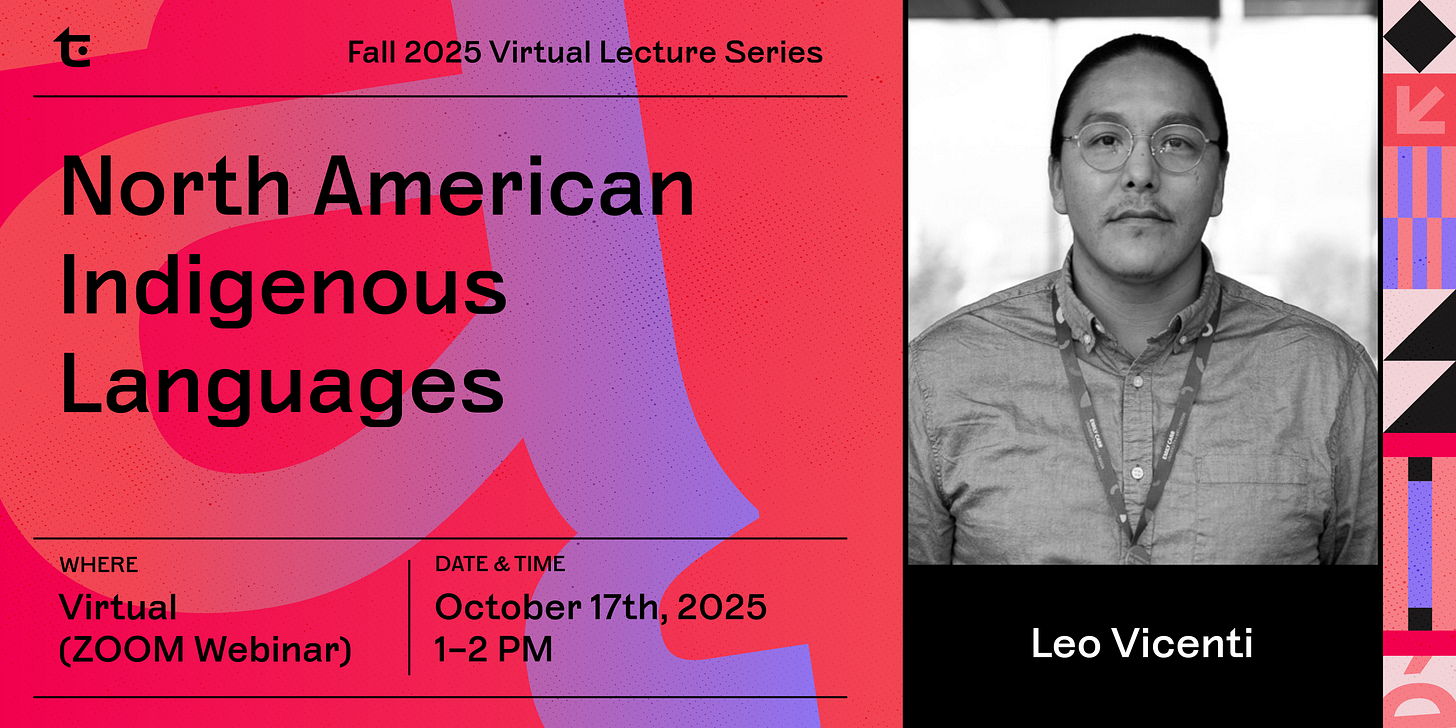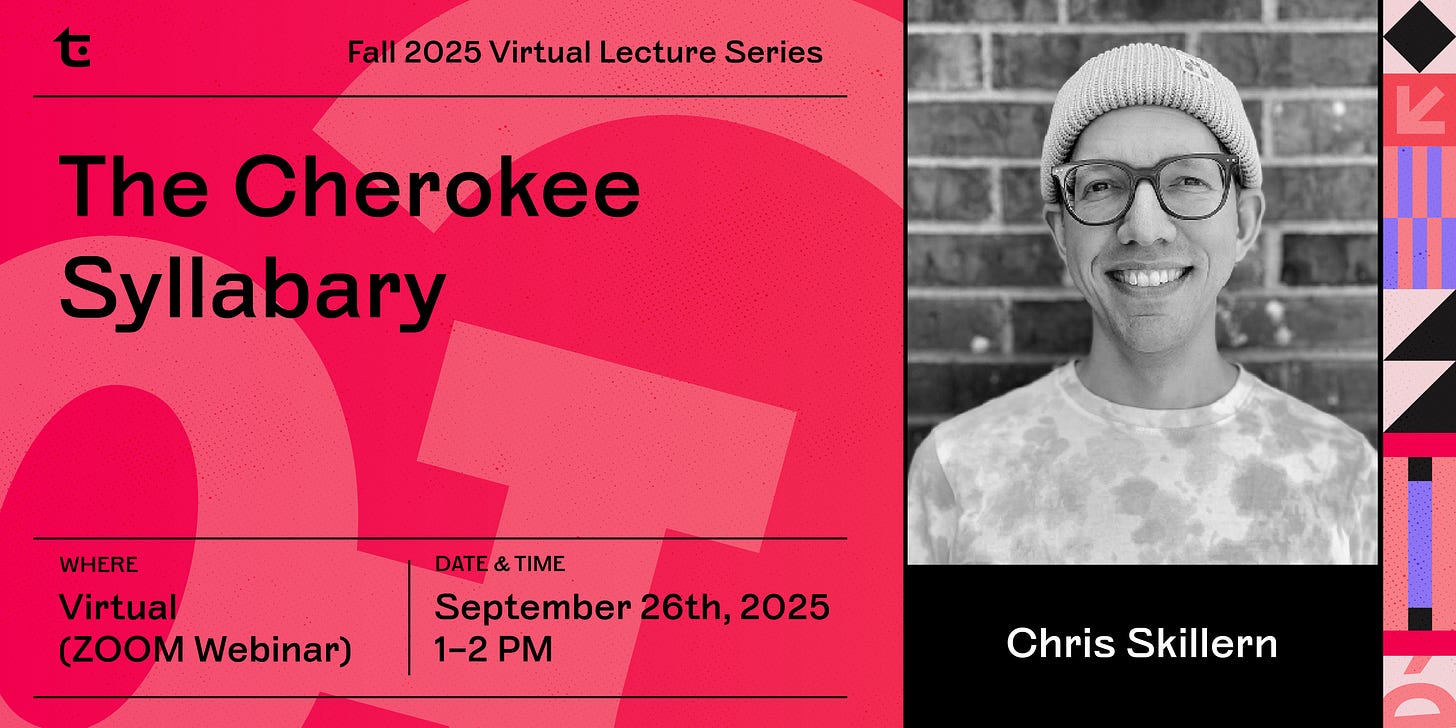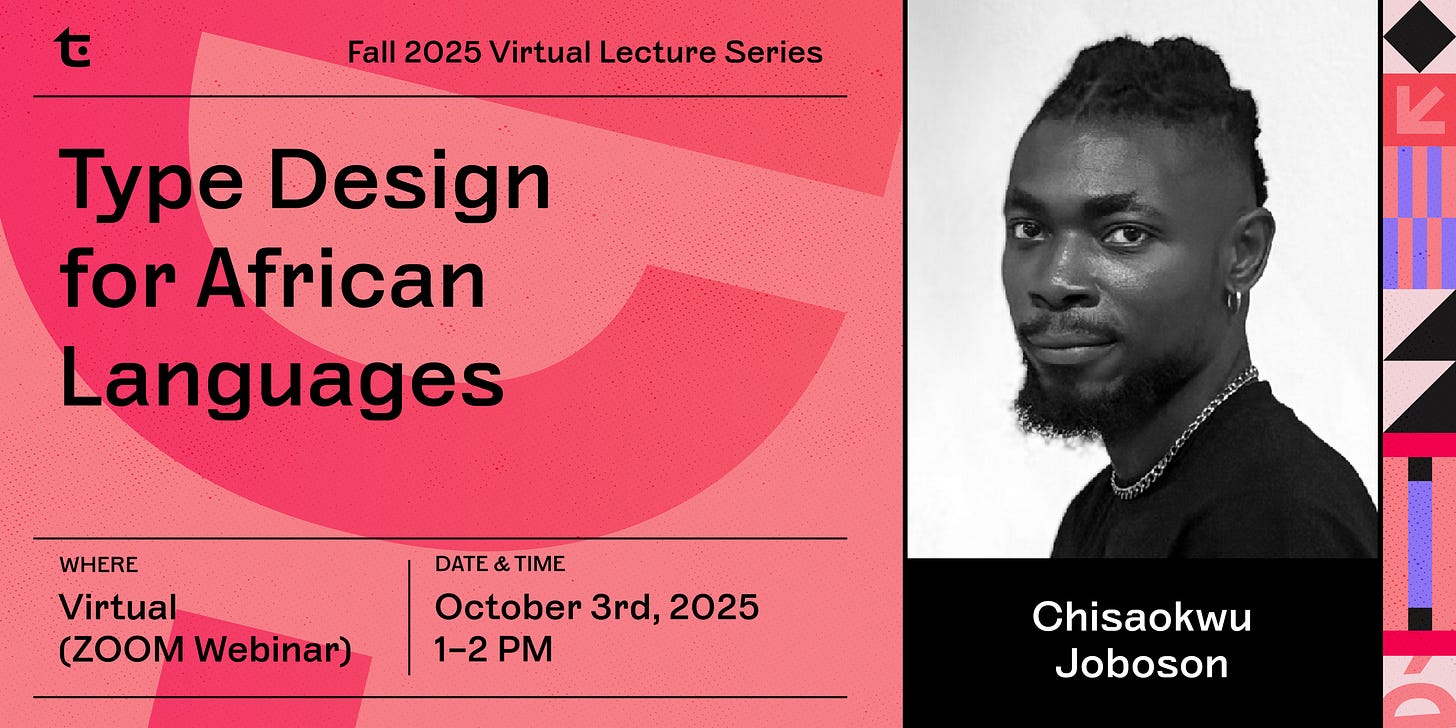
Supporting Linguistic Diversity through Type Design
This fall, we’re hosting a lecture series exploring the challenges of language support, diacritic design, and the role of type design in language revitalization. Our guests will share their experiences designing for diverse languages and scripts, offering both practical insights and critical perspectives.
Here’s what’s coming up next in the series:
September 26 | The Cherokee Syllabary with Chris Skillern
In this session, we’ll speak with Chris Skillern about The Cherokee Syllabary and his work in Indigenous language revitalization. We’ll explore the cultural, historical, and design considerations involved in creating type for the Cherokee Nation, including how type design can support language preservation and community identity. Chris will share his journey in type design, what working with the Cherokee syllabary has taught him, and how engaging with language as both a designer and community member shapes his practice. We’ll also discuss questions such as: What does it mean to design type for Indigenous languages? What is still missing? How can designers support language revitalization projects with cultural respect and sensitivity?
October 3 | Type Design for African Languages with Chisaokwu Joboson
In this session, we’ll speak with Chisaokwu Joboson, a Nigerian type and brand designer, about Type Design for African Languages and his work with Ụdị Foundry. We’ll explore the cultural, linguistic, and design considerations involved in creating type that elevates African stories and reflects the continent’s languages, character sets, visual traditions, and cultures. Chisaokwu will share his journey in type design, how his work challenges industry expectations, and his approach to authenticity, self-determination, and cultural representation. We’ll also discuss questions such as: How can designers expand access and equity in type design for African languages? What gaps exist in traditional typography education and resources? How can type support cultural identity, linguistic nuance, and visual expression across Africa?
October 10 | Language, Identity, and Typography in the Philippines with Jo Malinis and Jad Maza
In this session, we’ll speak with Jo Malinis and Jad Maza to explore the rich linguistic and typographic landscape of the Philippines. Jo will open with a broad overview of the country’s many languages and scripts, followed by Jad’s research on Baybayin and ongoing efforts in script revival and cultural reclamation. Together, they will reflect on questions such as: How has colonization impacted the writing systems of the Philippines? How have English and Tagalog shaped everyday communication and design? What does it mean to reclaim precolonial scripts today, and how can type design support that process?
October 17 | North American Indigenous Languages with Leo Vicenti
In this session, we’ll speak with Leo Vicenti about North American Indigenous Languages and his approach to type design that honors linguistic and cultural traditions. We’ll explore the design, cultural, and linguistic considerations involved in creating typefaces that support Indigenous communities, diacritics, and regional typographic practices. Leo will share his journey in type design, how working with Indigenous languages has shaped his perspective, and what it means to engage with language as both a designer and a community member. We’ll also discuss questions such as: How can designers work respectfully with Indigenous languages and worldviews? What lessons can typography draw from regional and cultural practices? How can designers support indigenous communities, sovereignty, and cultural expression through their work?